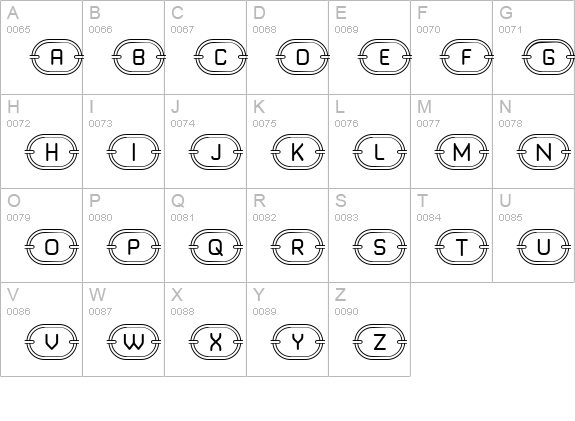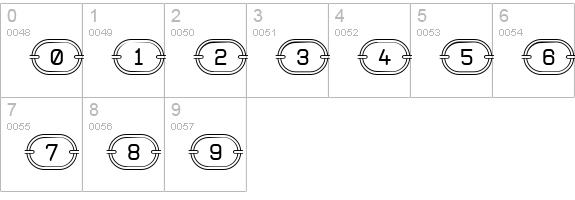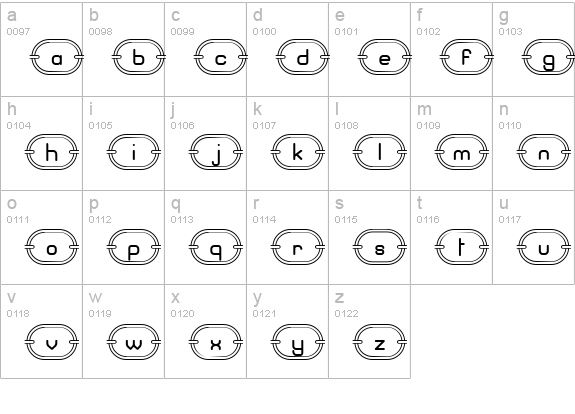
Chainz G98 font is a modern and stylish typeface that exudes elegance and sophistication. Its sleek and streamlined design makes it perfect for a wide range of design projects, from branding to editorial layouts. The font features clean lines and sharp angles that give it a contemporary and edgy look. One of the best things about Chainz G98 font is that it is free for personal and commercial use. You can easily download this versatile font at FontsMarket.com and start using it in your projects right away. With its bold and eye-catching appearance, Chainz G98 font is sure to make a statement and elevate the overall look of your designs.